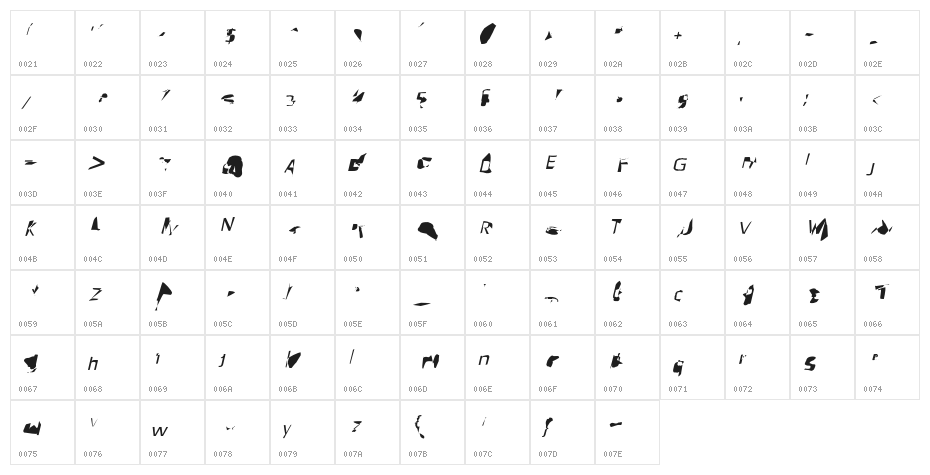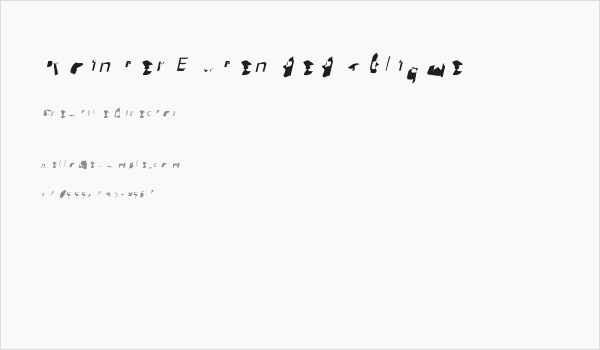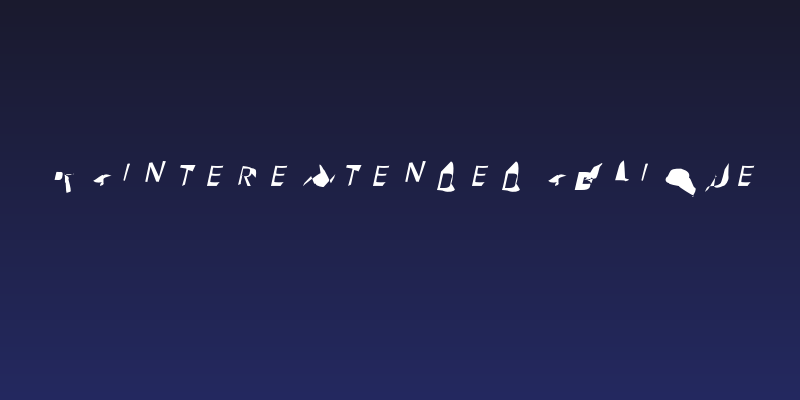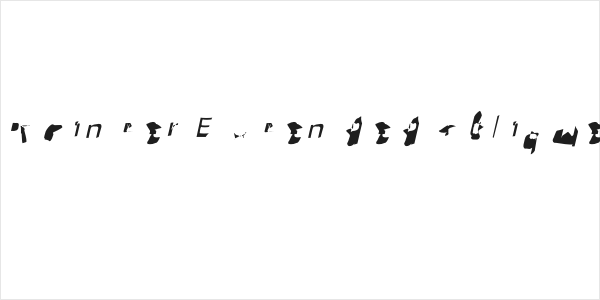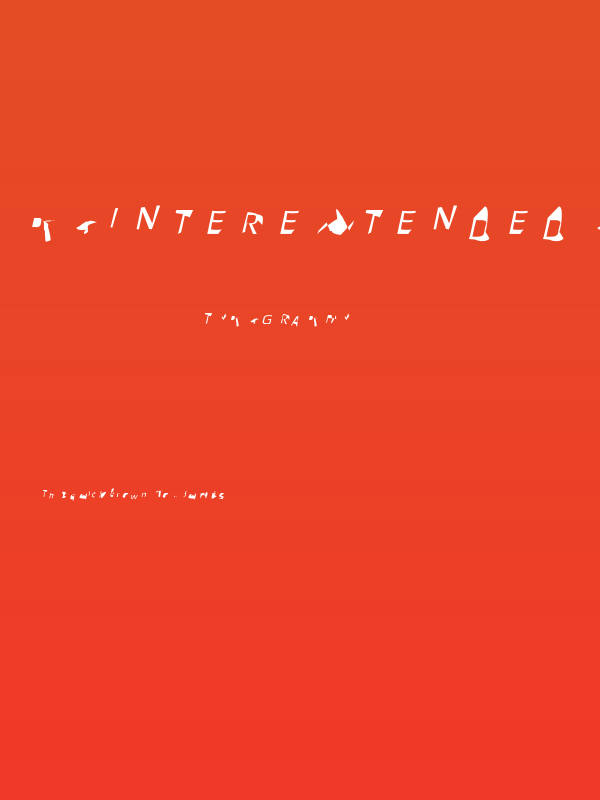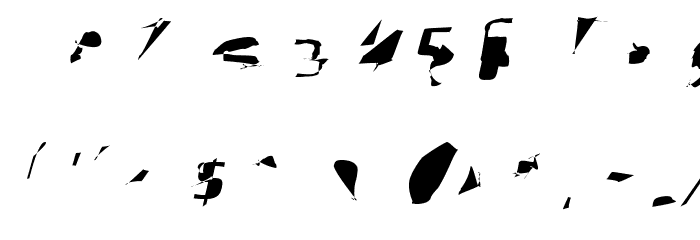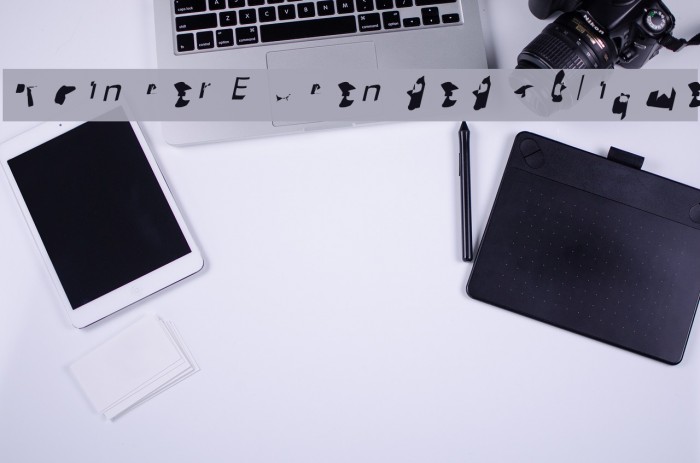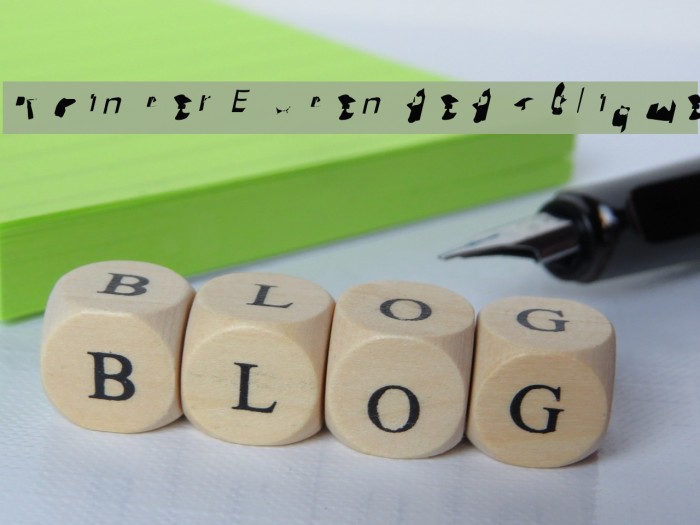
Pointer Extended Oblique Font
Pointer Extended Oblique Description
This font features a highly stylized and abstract design, characterized by its fragmented and distorted letterforms. Each character appears to be dynamically sliced or shattered, creating a sense of movement and energy. The font's oblique orientation adds to its dynamic appearance, while the extended width gives it a bold presence. The irregular shapes and sharp angles contribute to a modern and edgy aesthetic, making it stand out in any design. Despite its chaotic appearance, the font maintains a consistent style across all characters, ensuring readability while offering a unique visual impact.
| Proposed Projects | Ideal for edgy branding, modern art posters, album covers, and experimental design projects. |